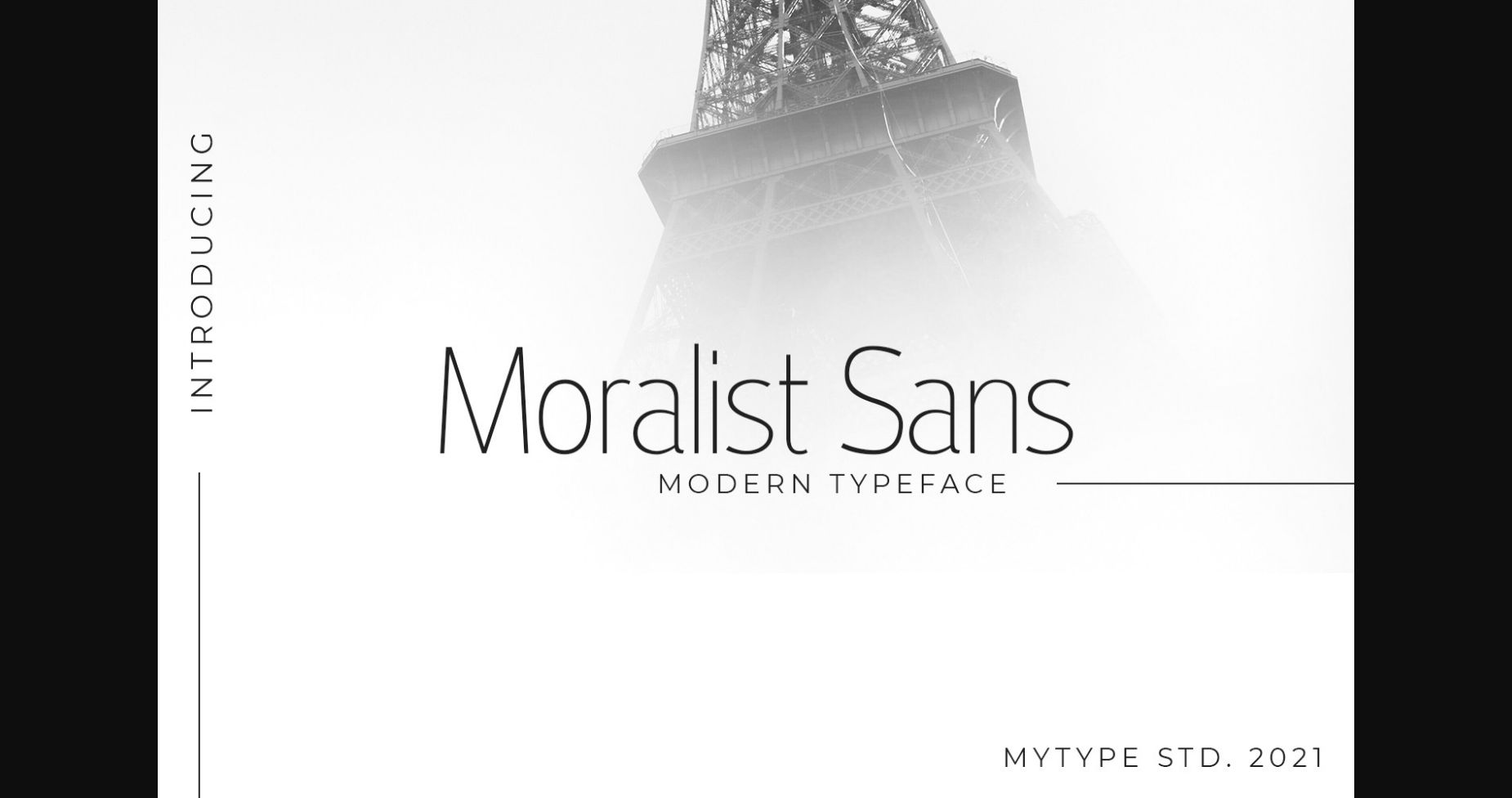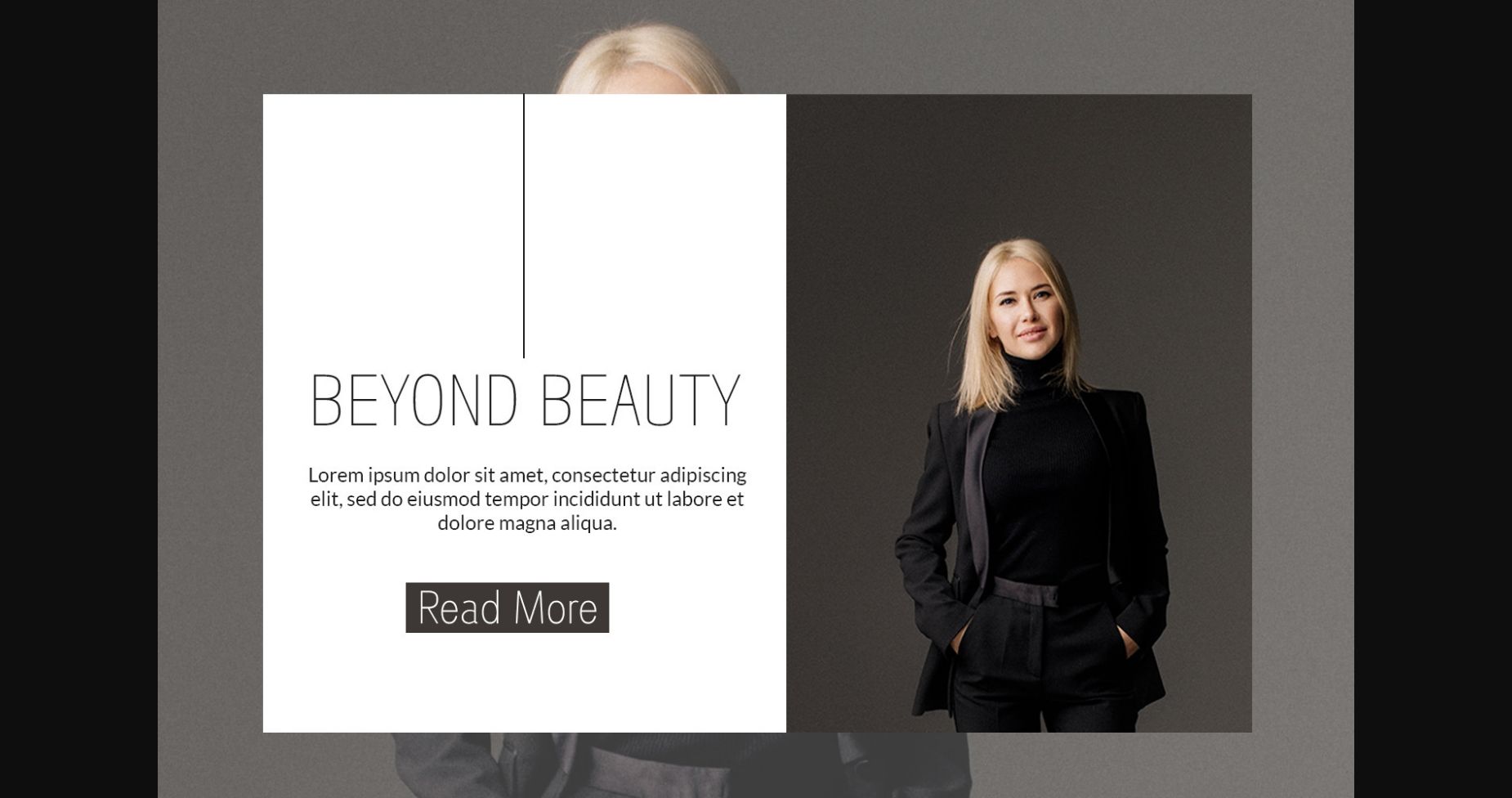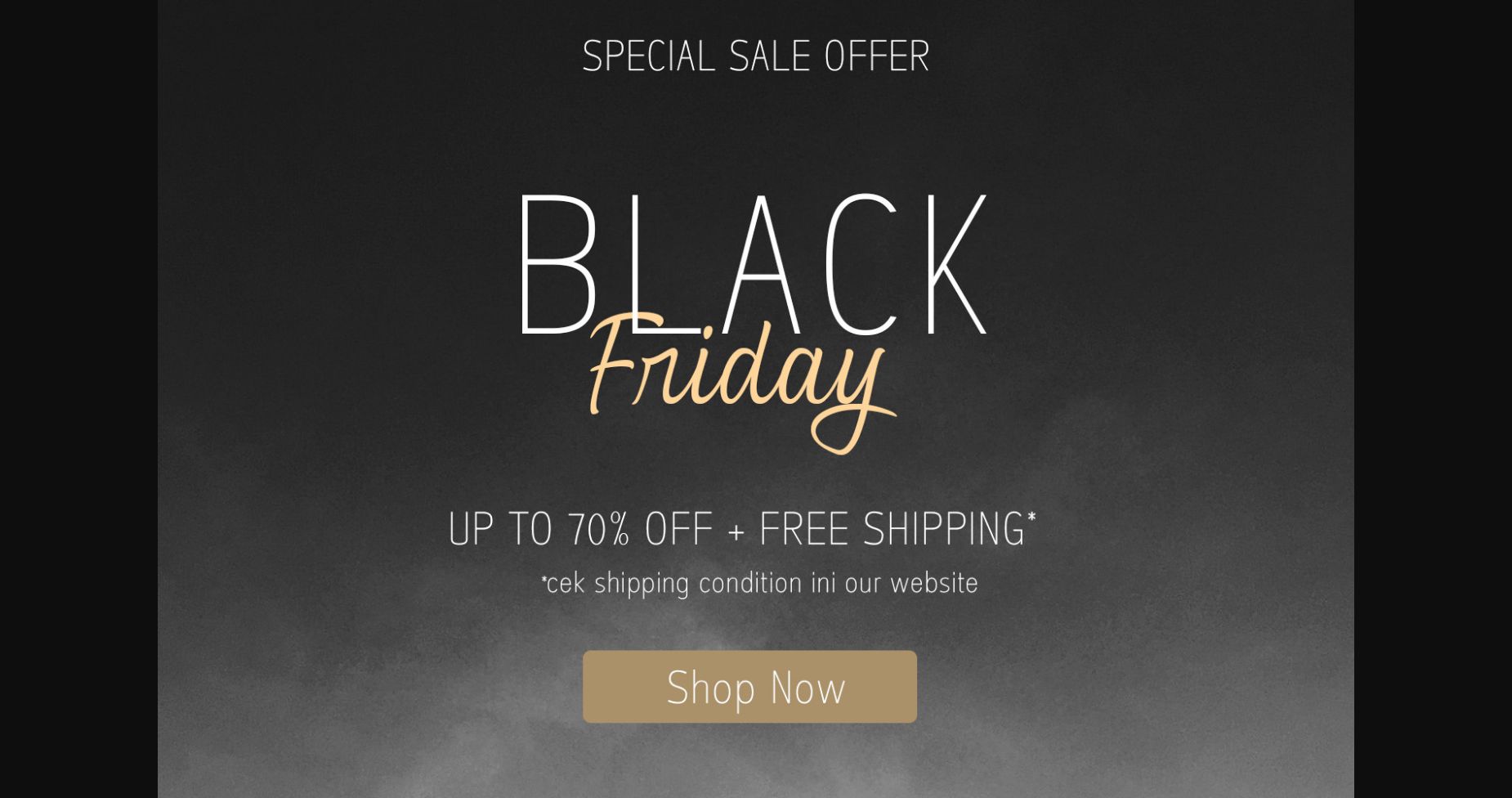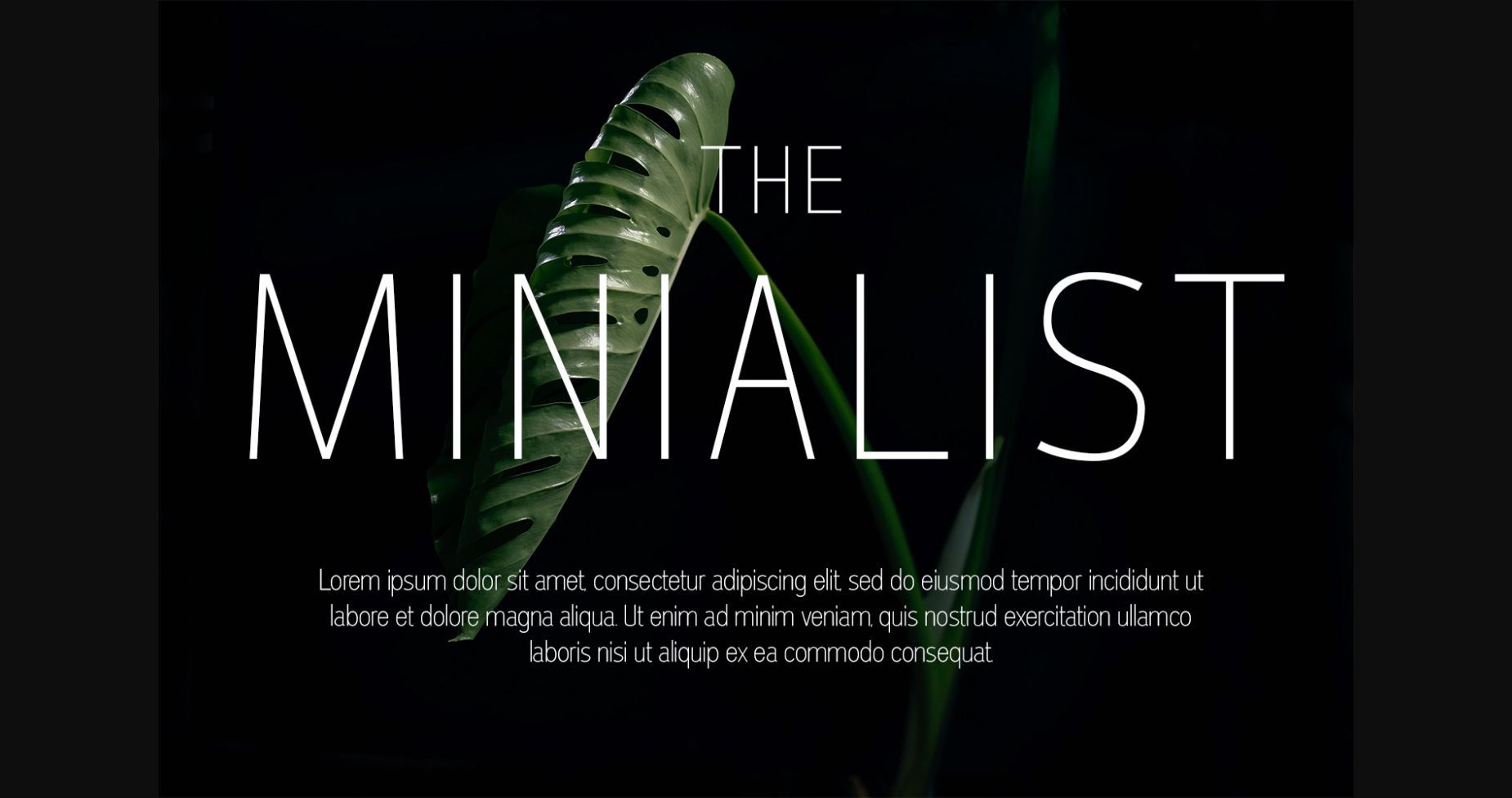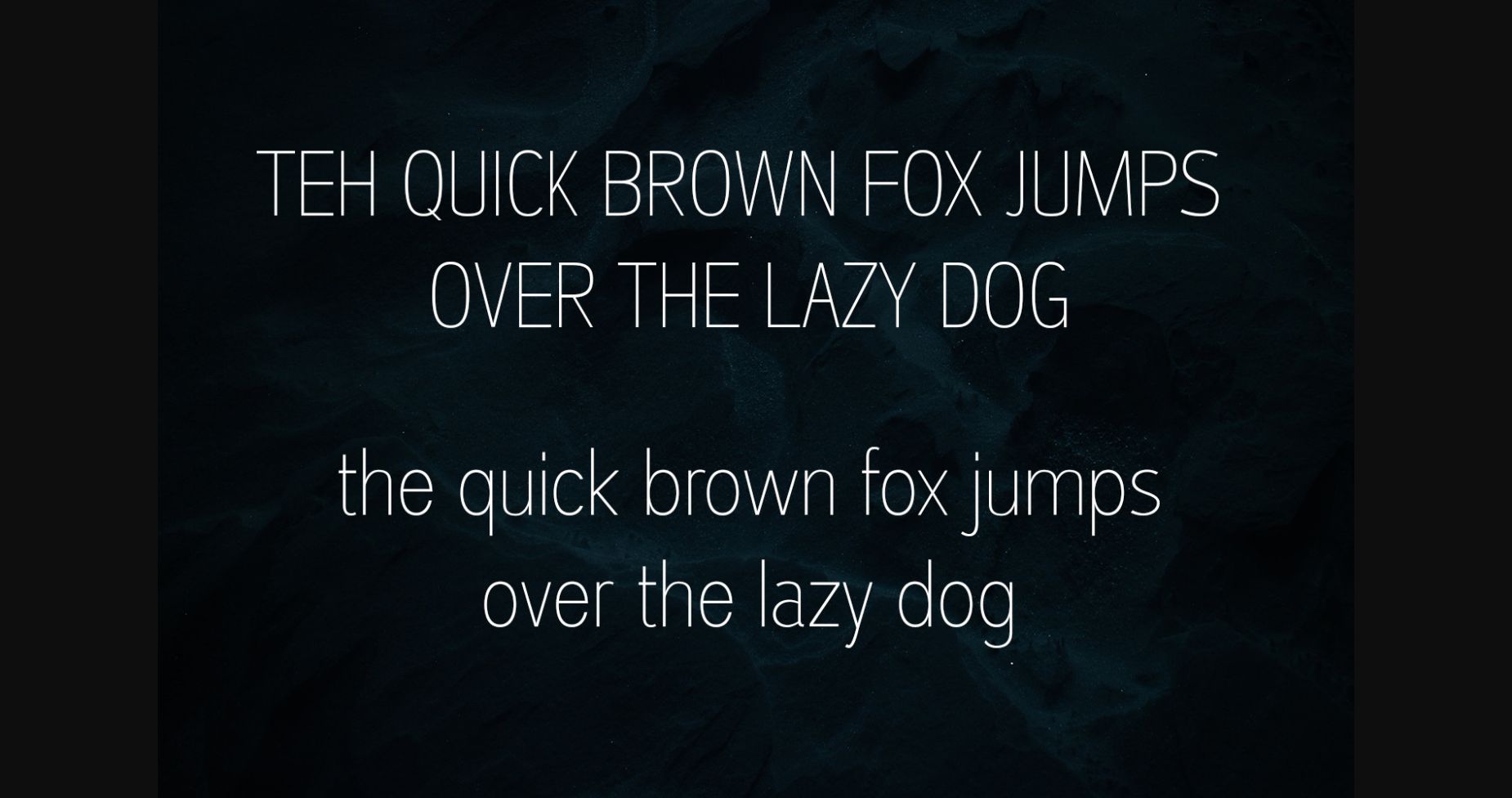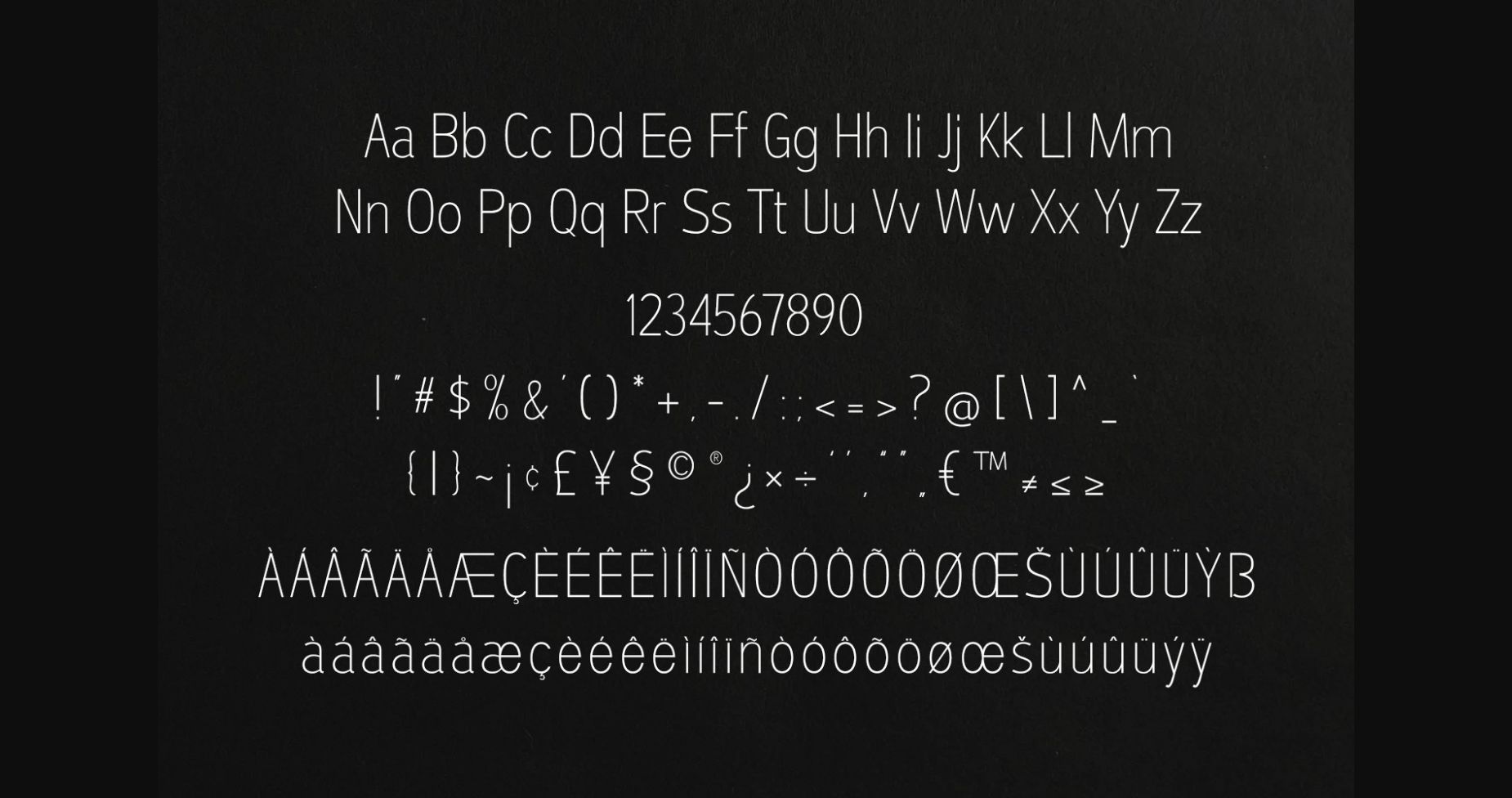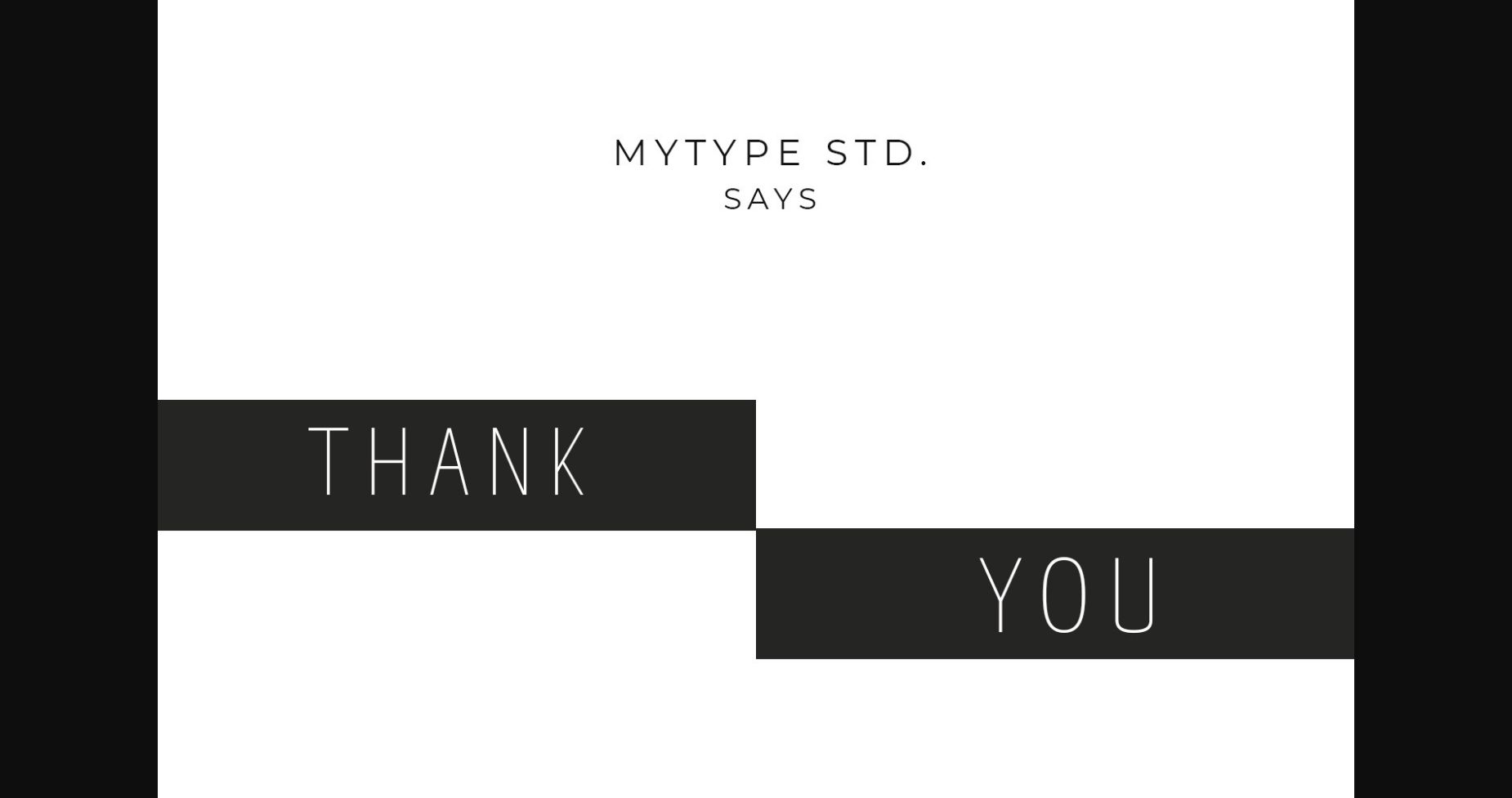
Moralist Sans Font
About Moralist Sans Font
Moralist Sans is a minimal and neat sans serif font. It can easily be matched to an incredibly large set of projects, so add it to your creative ideas and notice how it makes them stand out!